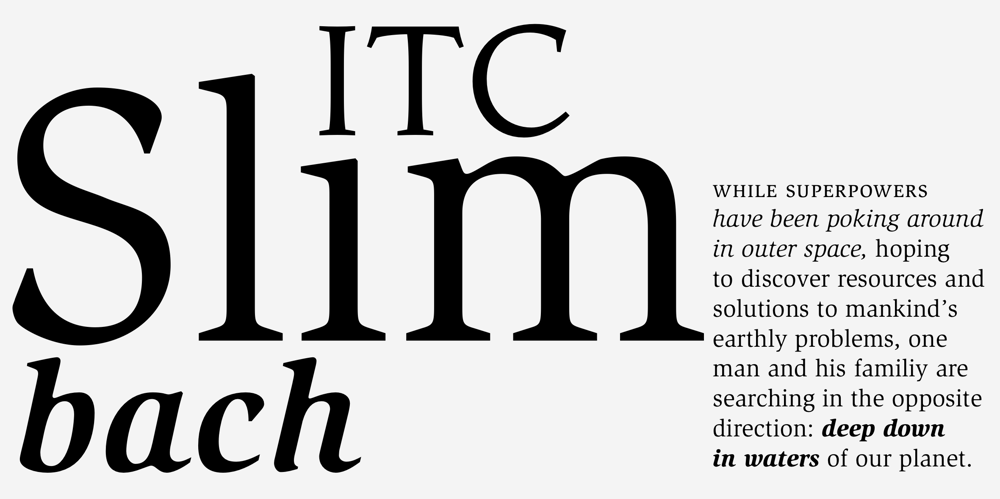
ITC Slimbach
ITC Slimbach font
ITC Slimbach Font Family was designed by Robert Slimbach and published by ITC. ITC Slimbach contains 8 styles and family package options. ITC Slimbach font is the work of California calligrapher and type designer Robert Slimbach. Inspired in part by German fonts and the work of Hermann Zapf, Slimbach created a “contemporary text font with a progressive look”, combining clean serif shapes with the warmth of calligraphic forms.